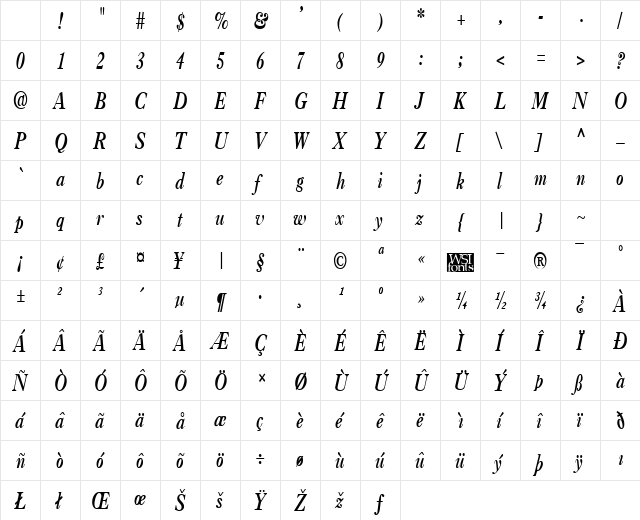
Complete CasqueCondensed Bold Italic glyph index. Displaying only characters natively supported by CasqueCondensed Bold Italic font.
CasqueCondensed is a composed and adaptable typeface that performs quietly and consistently across a wide range of design contexts. The slanted form adds forward momentum and visual energy. Its bold stroke weight gives it real presence on the page. Its narrow stance lets it pack a punch even in space-constrained designs.
Pro Tip: Use CasqueCondensed for emphasis, pull quotes, and subheadings where its slanted energy can add rhythm to the layout.